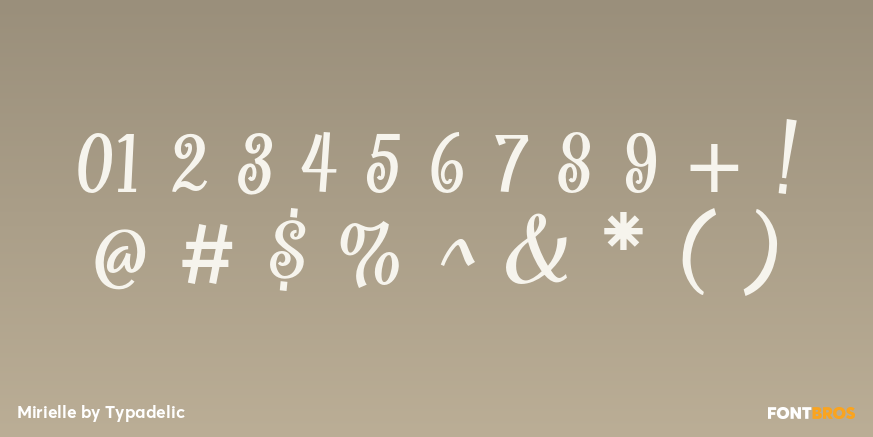
Mirielle
Font Family by Typadelic
Mirielle is curvy yet angular, whimsical yet orderly. As with all Typadelic fonts, this script typeface is unique and original, with a playful twist.